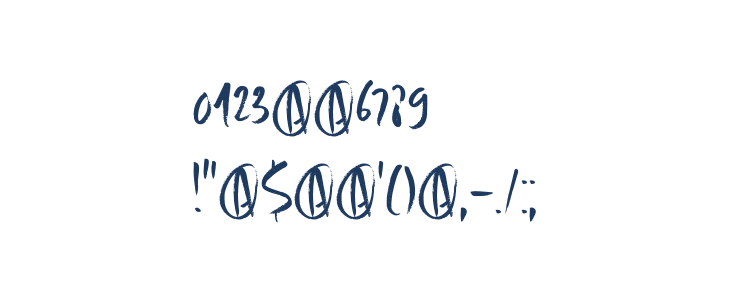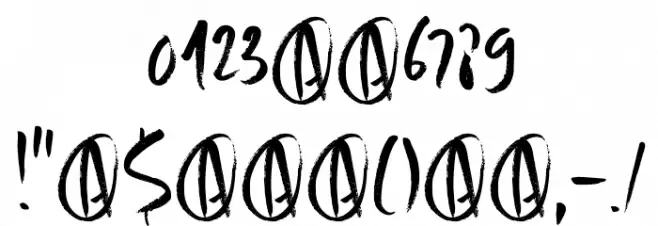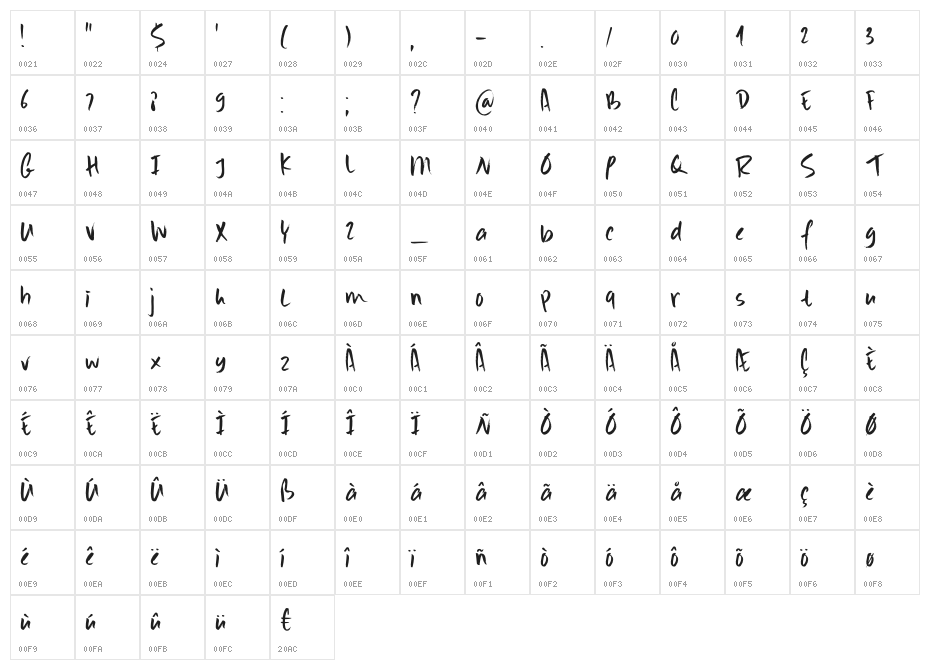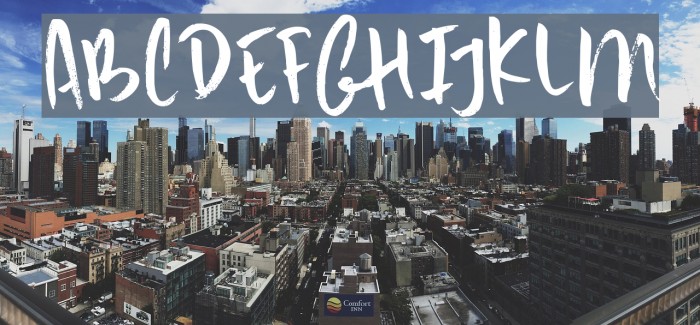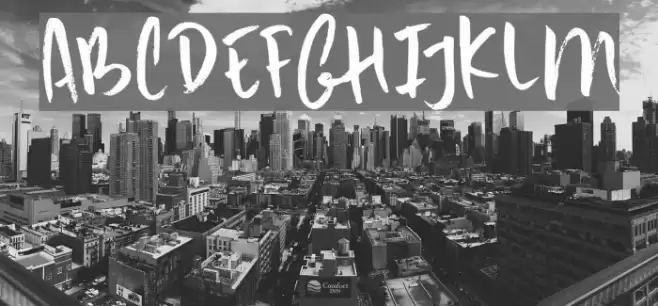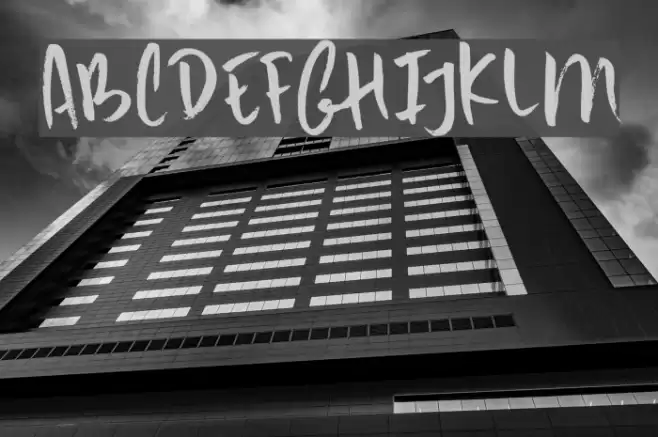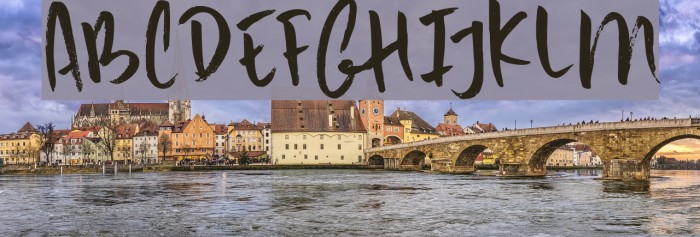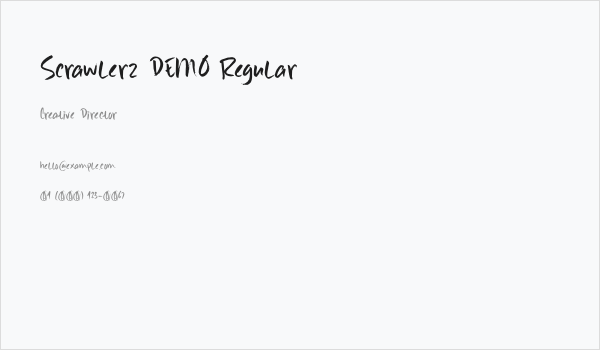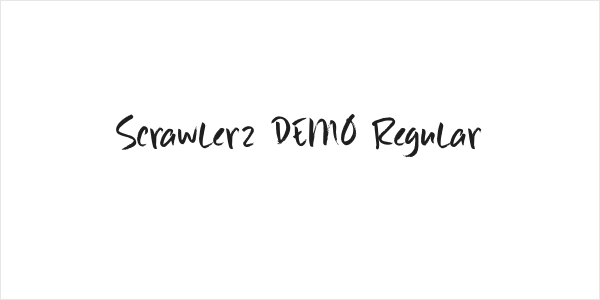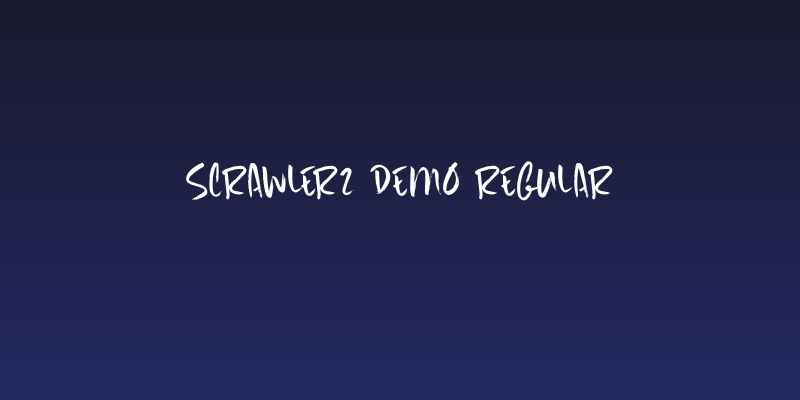
Scrawlerz DEMO Regular Font
Scrawlerz DEMO Regular Description
This font features a bold, expressive style reminiscent of hand-painted brush strokes. The characters are dynamic and fluid, with a slightly irregular baseline that adds to its artistic charm. The uppercase and lowercase letters maintain a consistent style, with the uppercase being slightly more pronounced. Numbers and special characters are equally expressive, with a playful yet edgy appearance. The overall look is both modern and artistic, making it suitable for creative projects that require a personal touch.